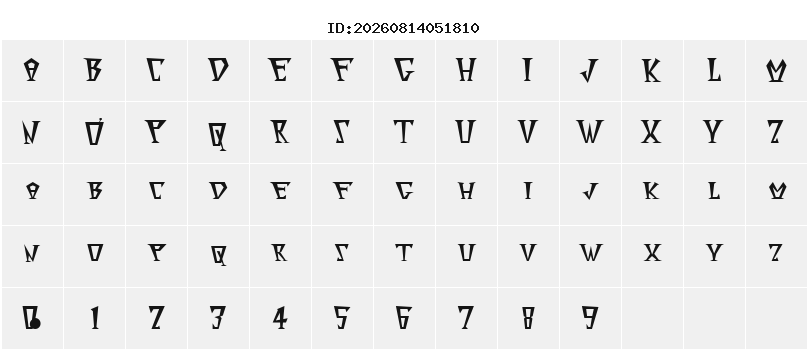
• Font Name: Surfinta Mars
• Font ID: Surfin'ta Mars
• Full Font Name: Surfinta Mars
• Designer: RudynFluffy
• Manufacturer: RudynFluffy Entertainment
• Description: This is a sixties style font dedicated to the probe that went to mars. Released the same day. It has now been update to honor the Soviet and US space programs by having Russian letters and accented letters.